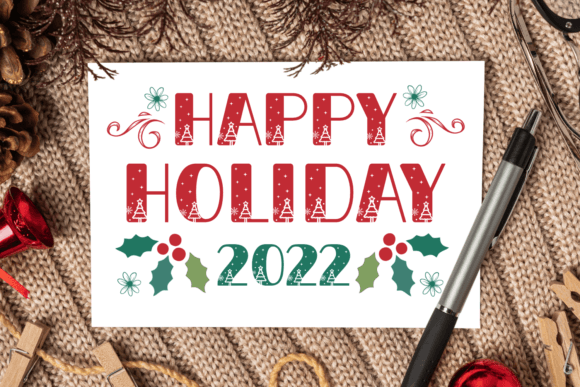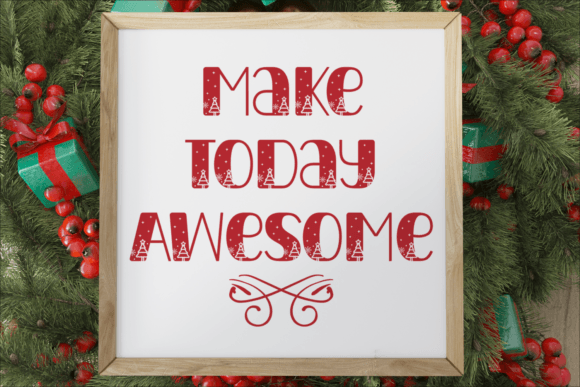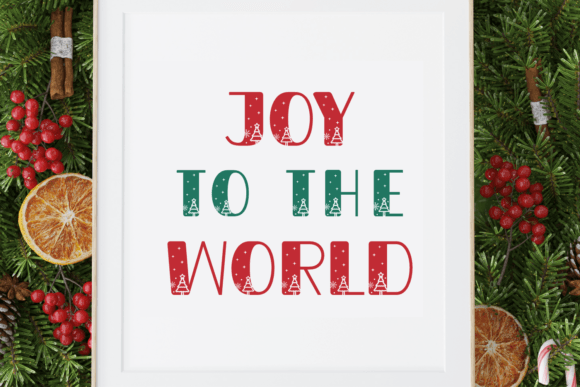
Introduction to Noel Night Font
Noel Night is a beautiful Christmas-themed decorative font.
This gorgeously-designed typeface features mixed-width letters and lovely festive elements Get into the Christmas spirit and use it for your upcoming design project.
Key Features of Noel Night Font
Why Choose Noel Night Font?
Noel Night Font offers exceptional quality and versatility, making it a valuable addition to your design toolkit. Whether you’re creating for personal projects or commercial use, Noel Night Font delivers professional results.